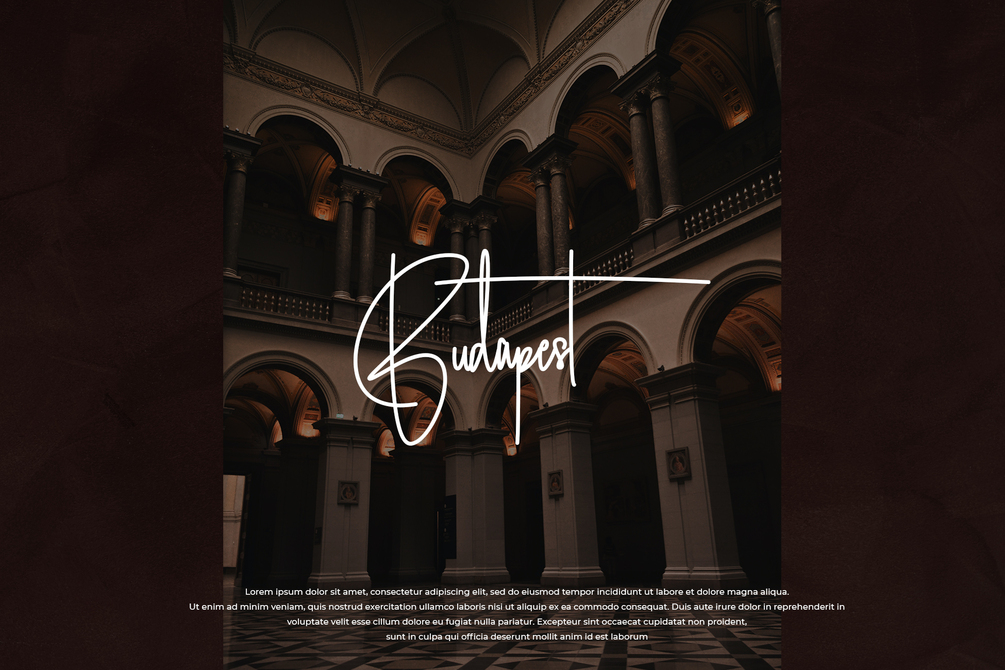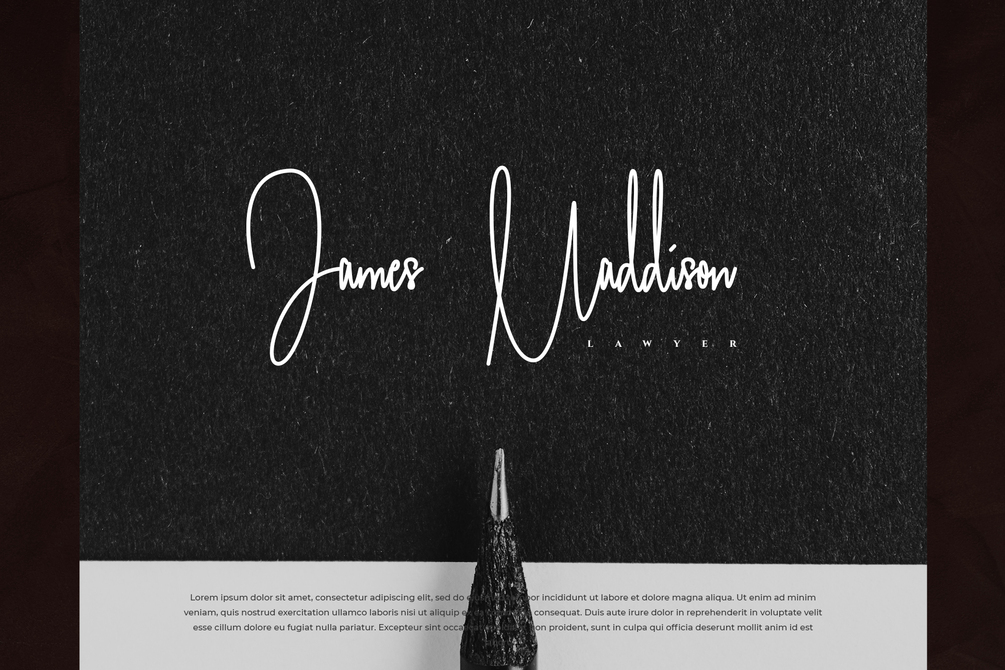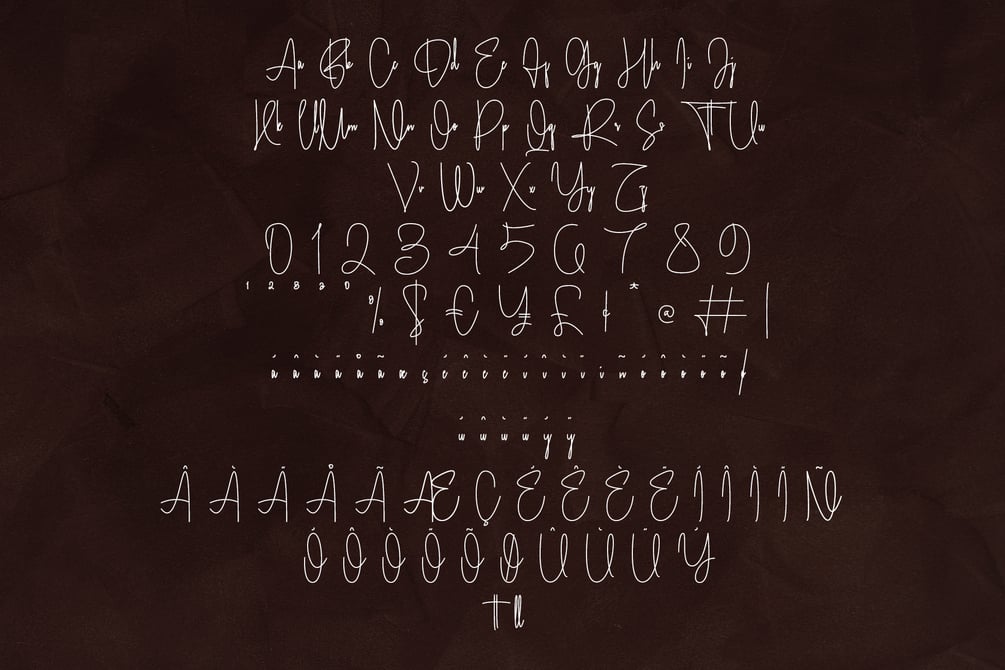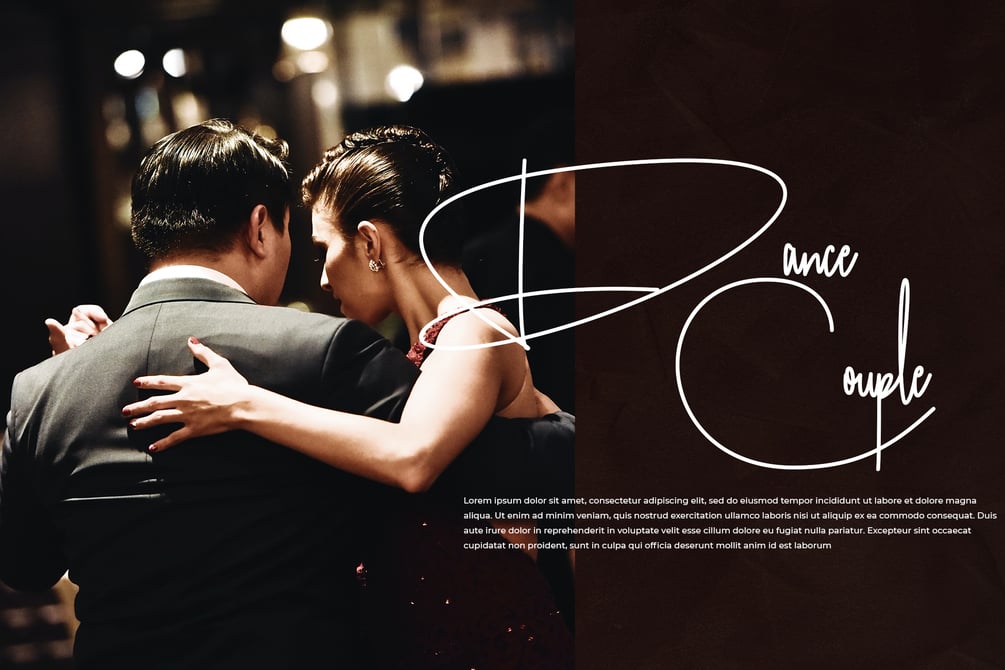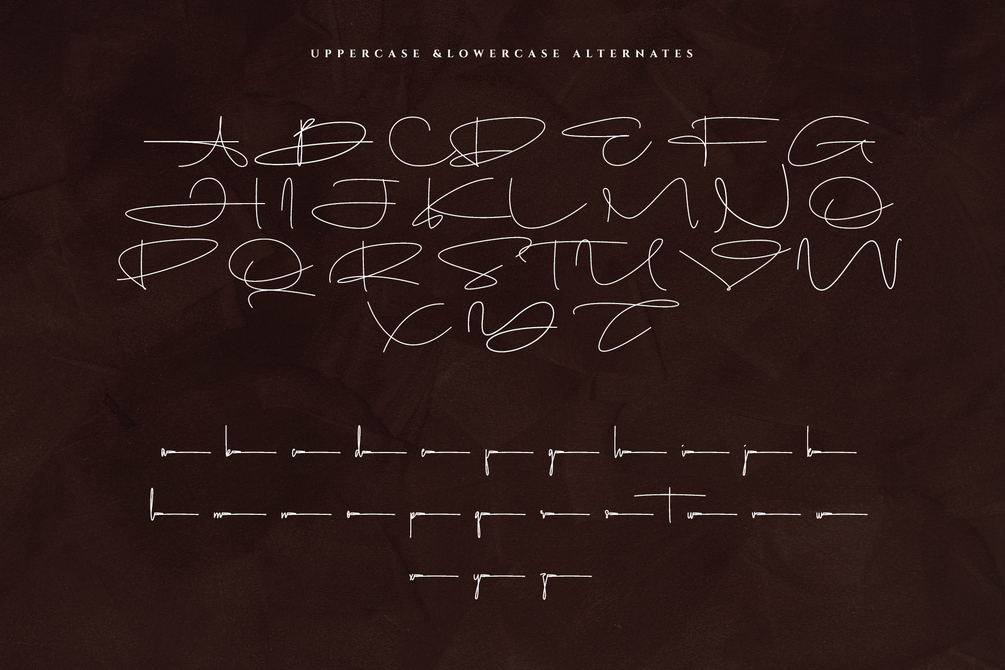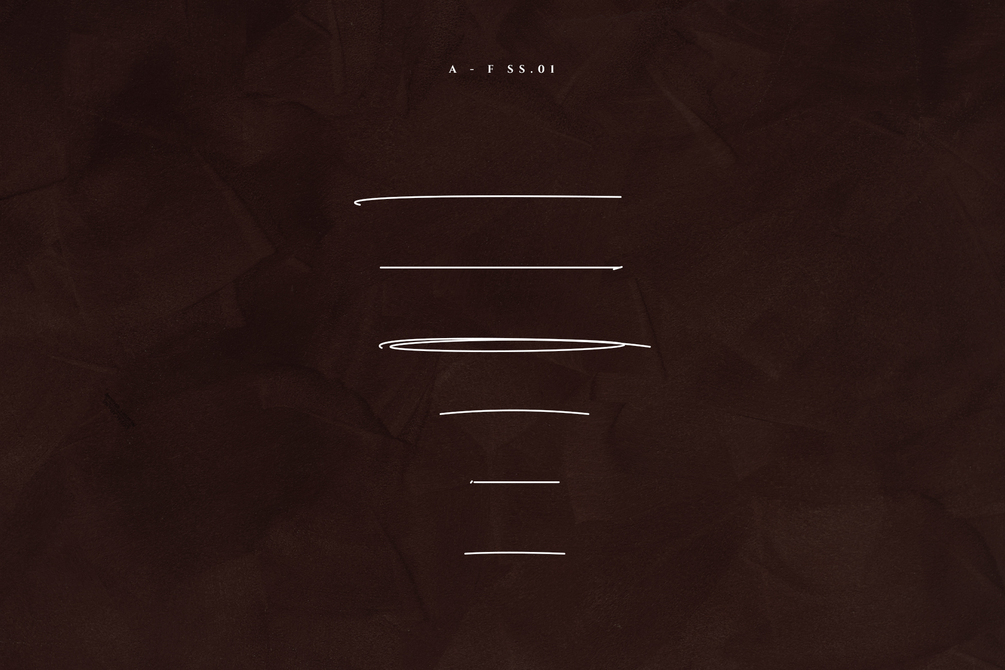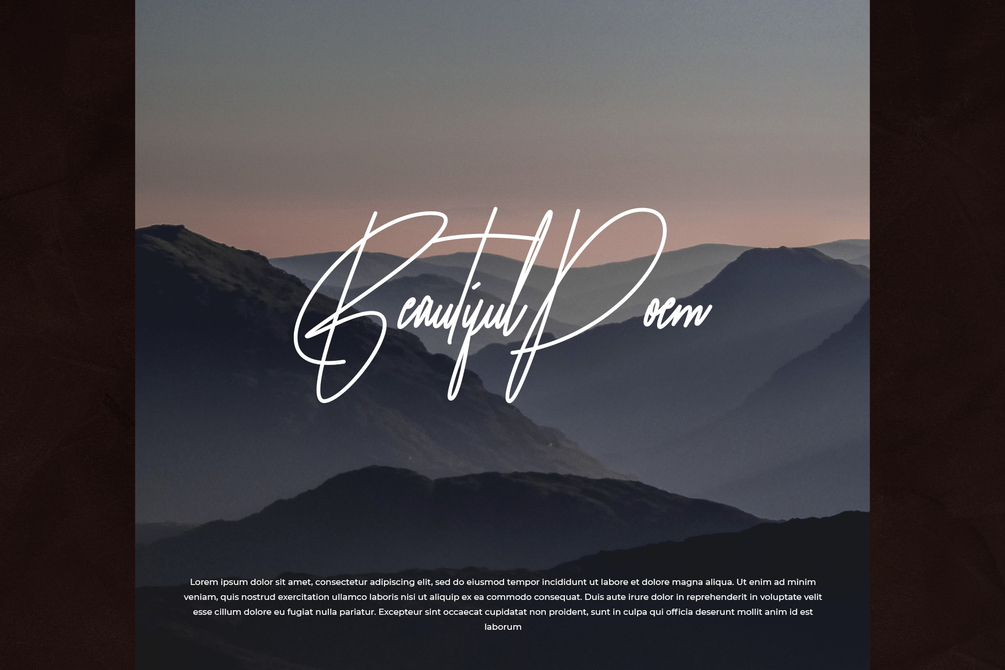
Balhemson Font
Balhemson is handwritten font that comes with a smooth signature style. suitable for business card, logotype, branding, poster, and so on. contains standard English letters, numbers, punctuation, alternates, and several accents that support multilingualism.